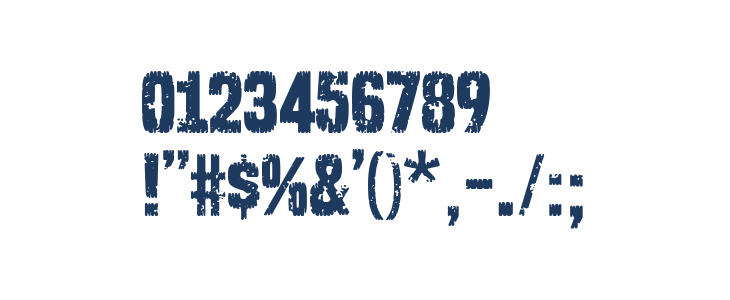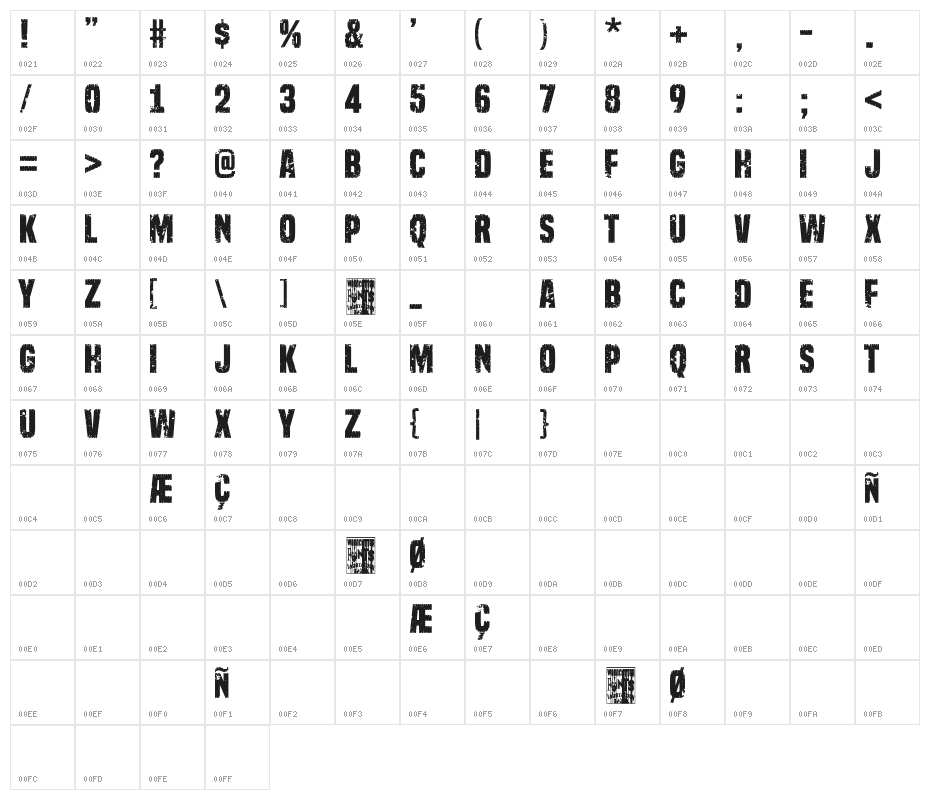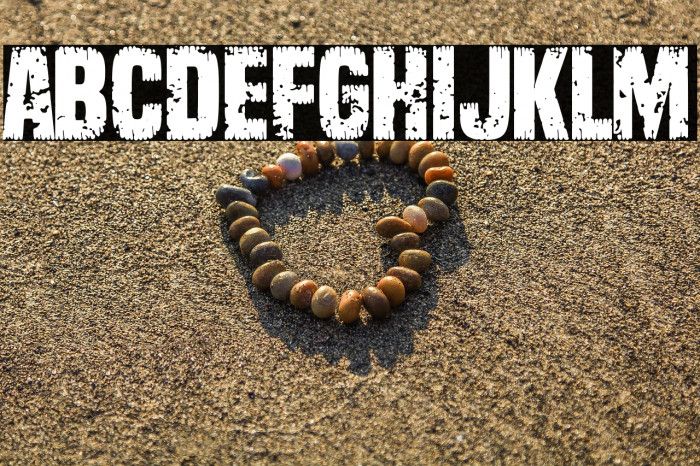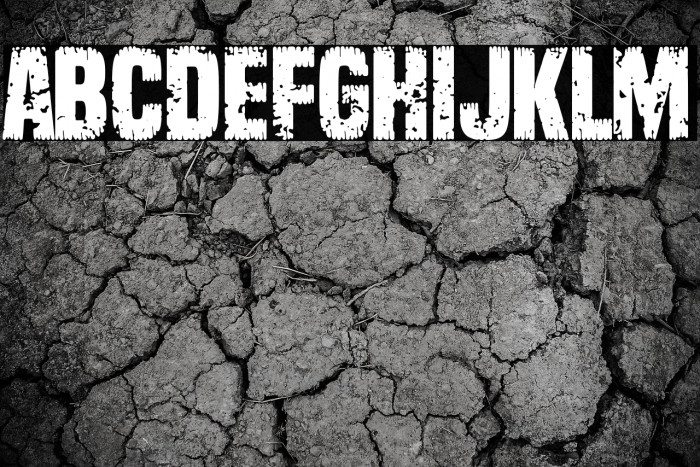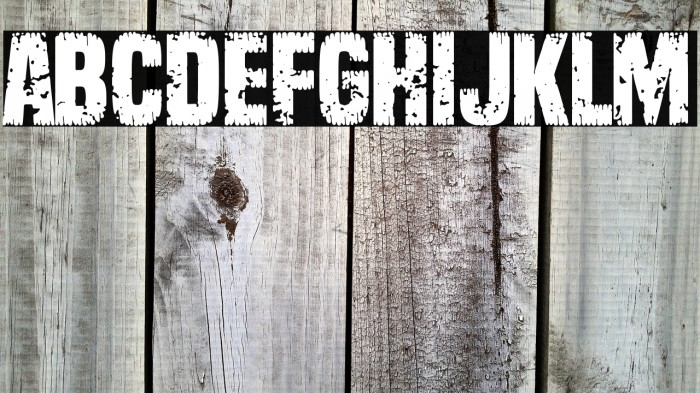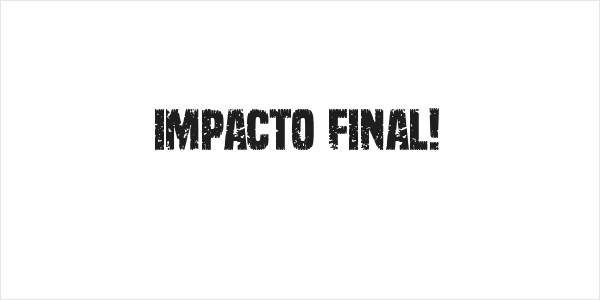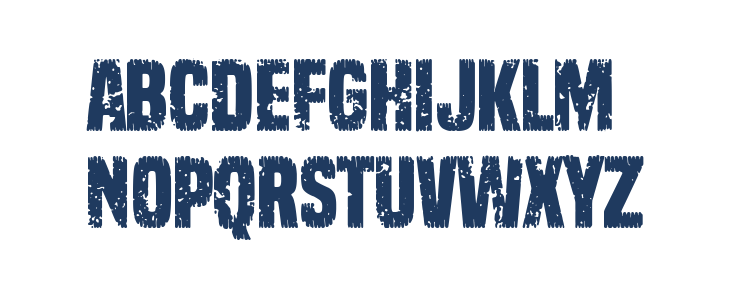
Impacto Final! Font
✎ Distorted Eroded
| Proiecte propuse | Ideal for posters, album covers, branding for edgy products, or any design needing a strong, gritty aesthetic. |
Impacto Final!